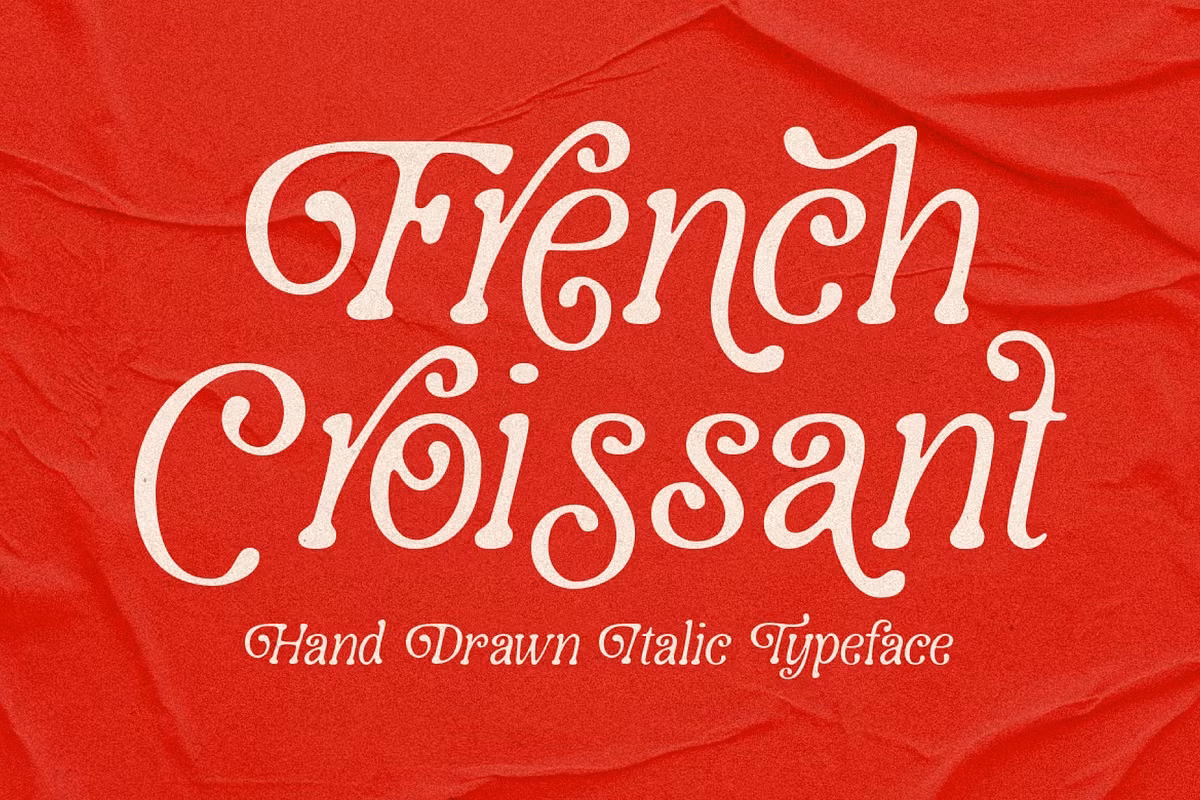
The French Croissant Typeface Free Download is a whimsical and elegant script font inspired by the charm of French calligraphy and café culture. Perfect for branding, wedding invitations, logos, and stylish social media graphics, this font brings a warm, inviting feel with its graceful strokes and sophisticated design.
With its flowing curves and balanced letterforms, French Croissant adds a personal, handwritten touch to any project. It includes uppercase and lowercase letters, numbers, punctuation, and multilingual support, making it versatile for a wide range of design applications.